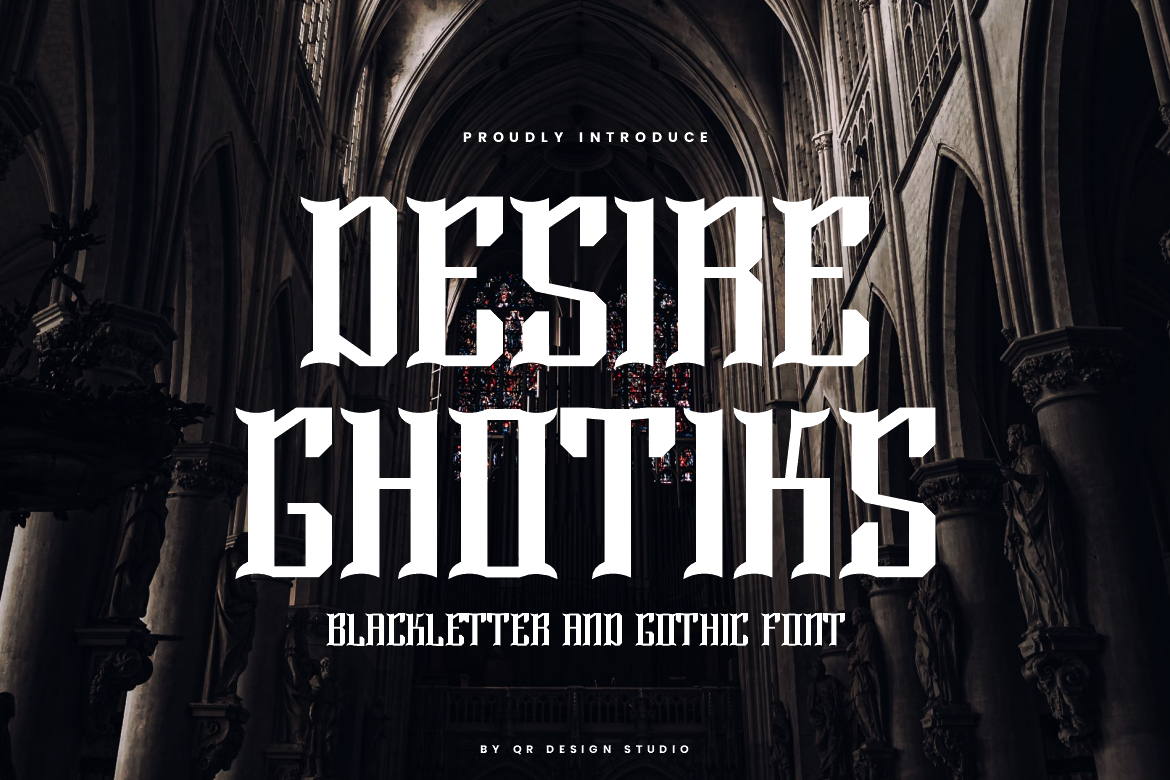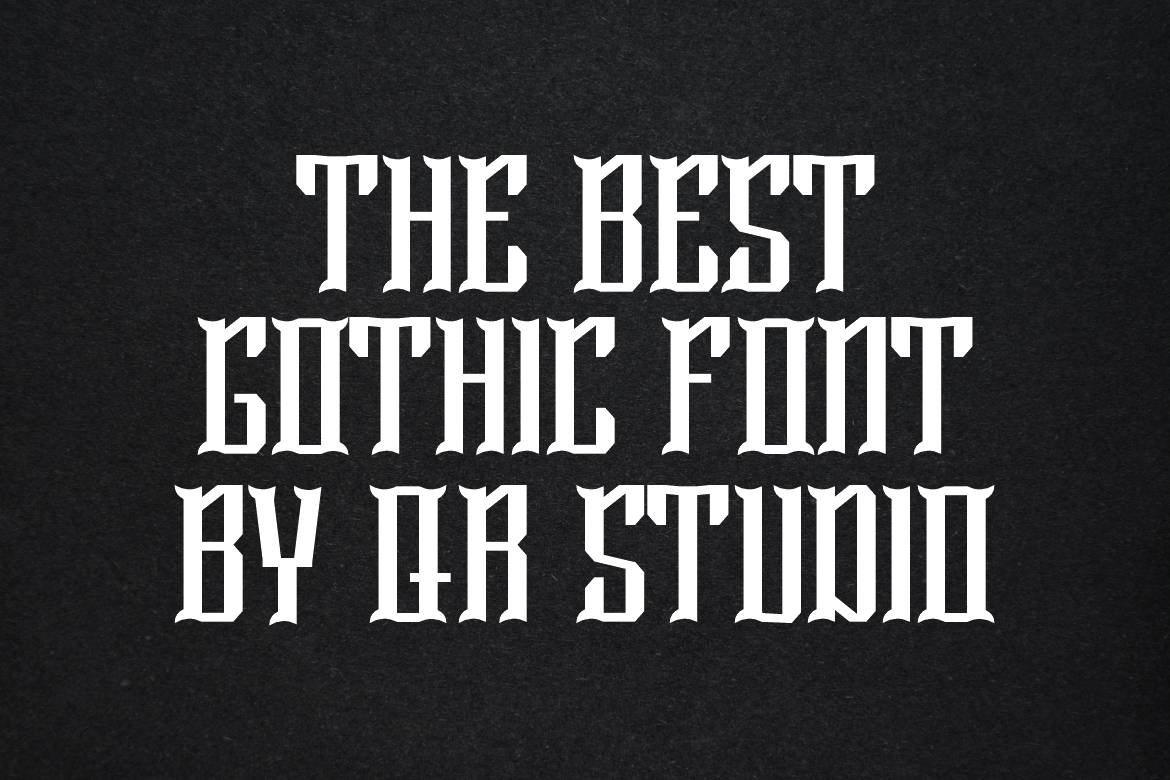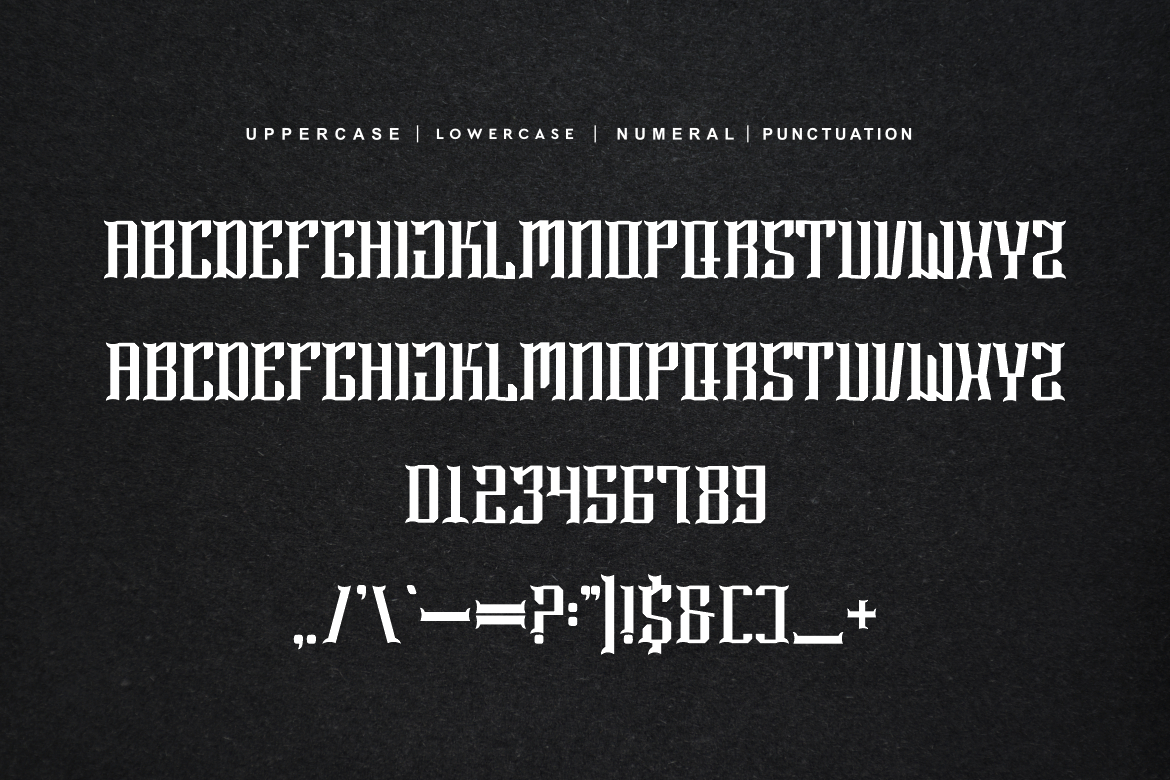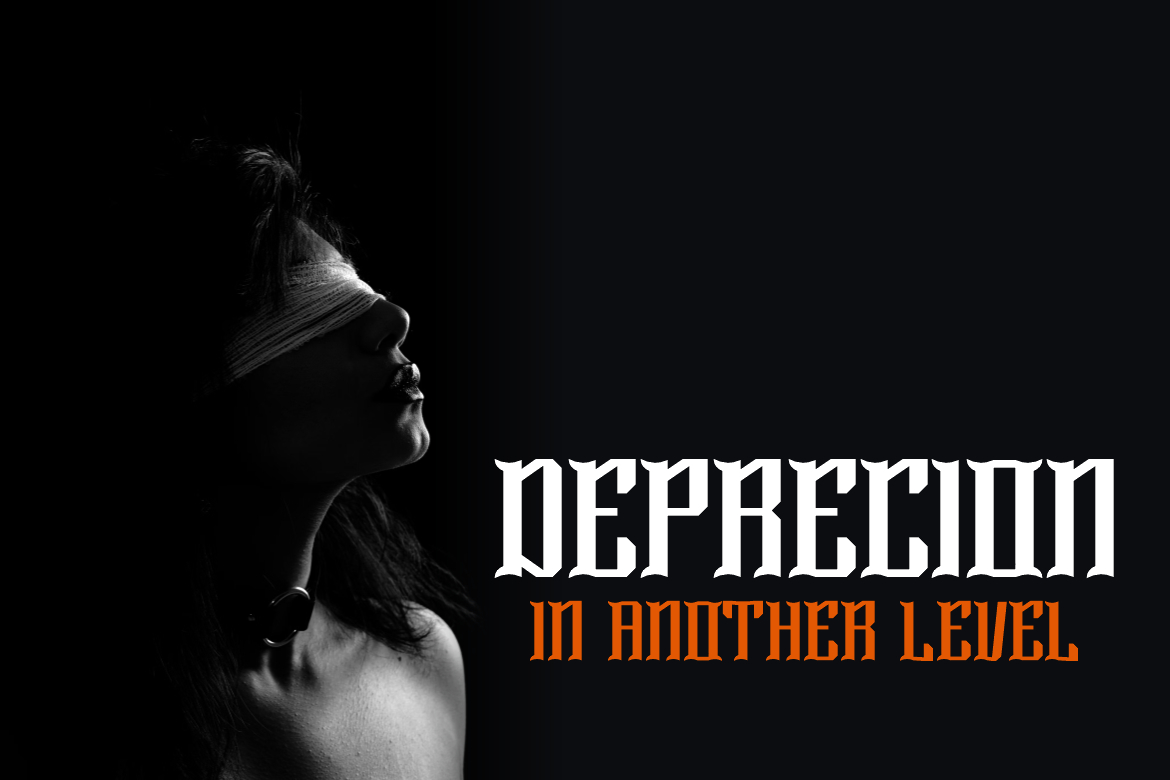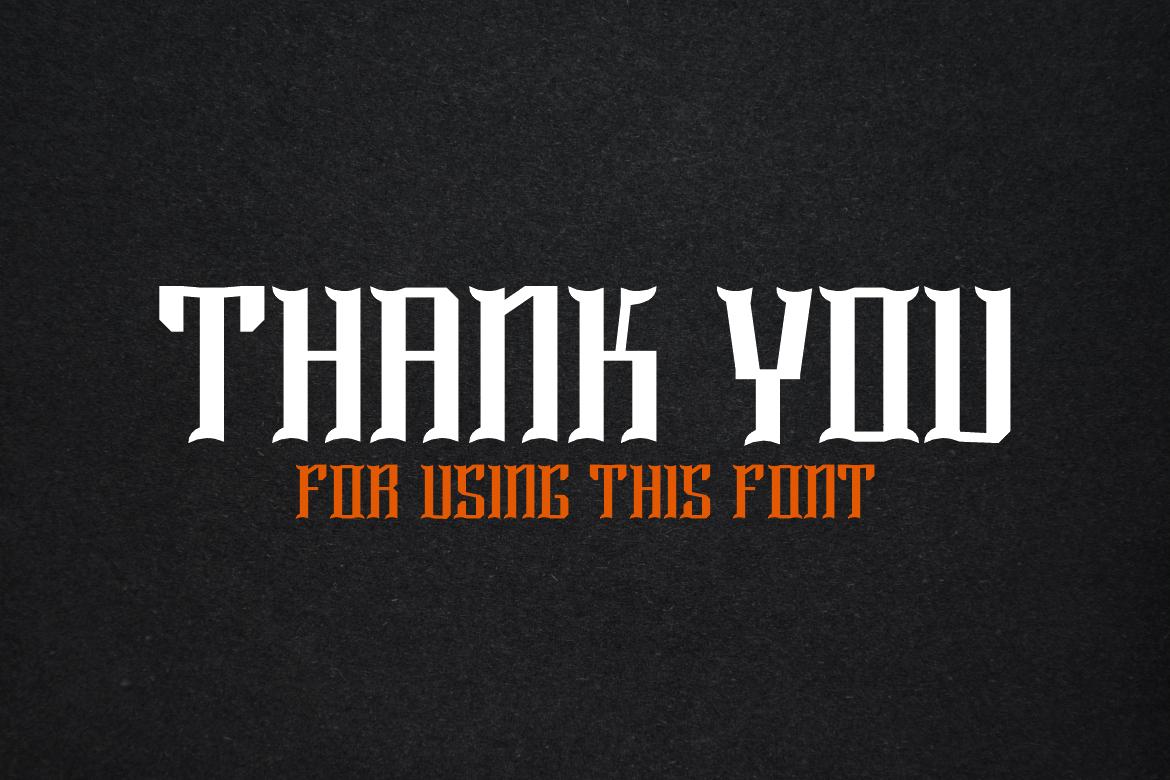
About Desire Ghotiks Font
Desire Ghotiks is a bold and thick lettered blackletter font. Add it confidently to your projects, and you will love the results.